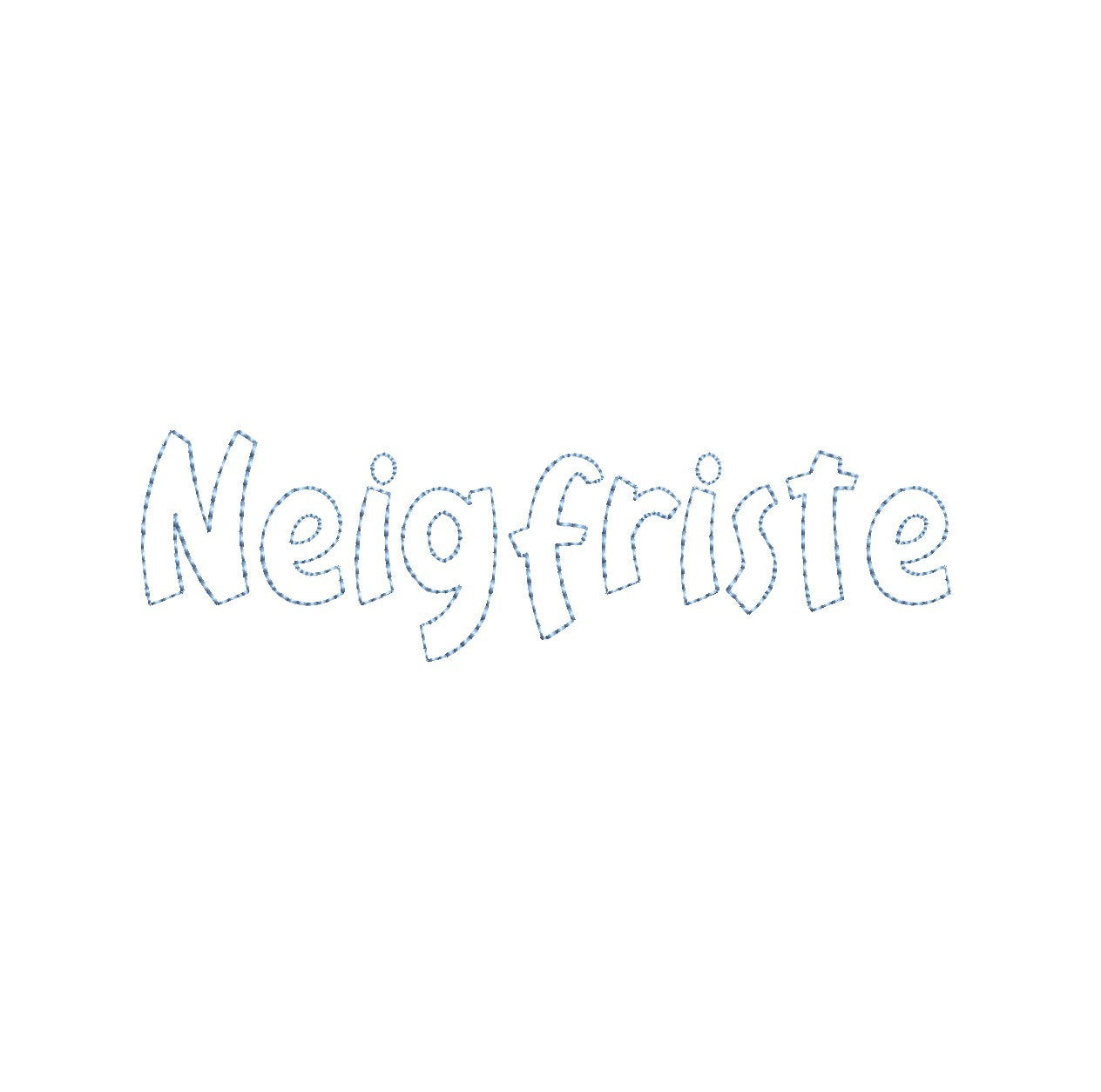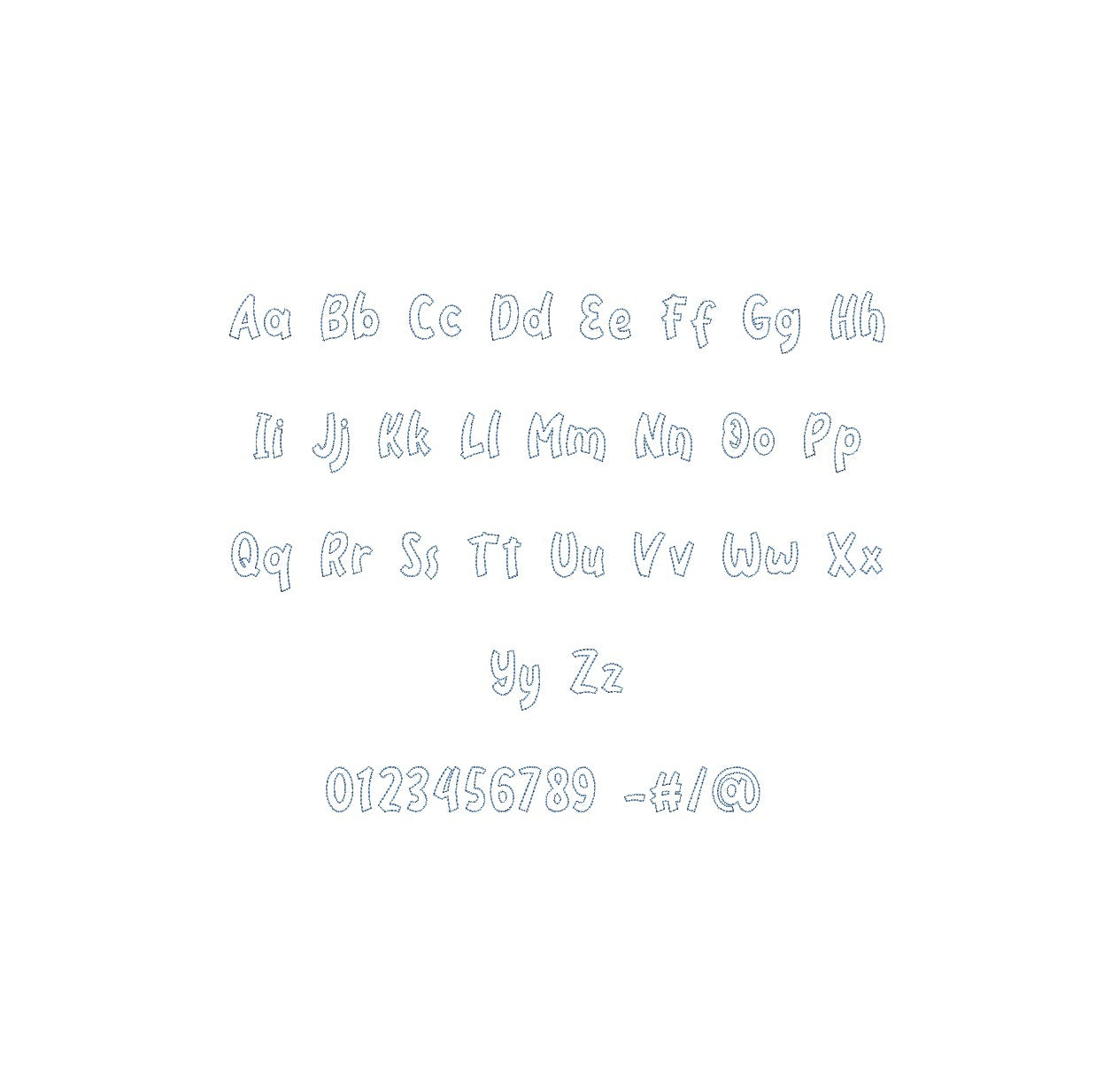
Elevate your embroidery with the Neigfriste Bean Outline ESA font. Designed for Wilcom Studio e4.5.6 and Hatch 3 versions and up, this font seamlessly blends style and precision. Infuse your designs with a unique aesthetic, perfect for monograms and embellishments. Experience seamless compatibility for exceptional results. Unleash a new level of stitching finesse with the Neigfriste Bean Outline ESA font – your key to captivating designs that stand out. Transform your creations into embroidery masterpieces that reflect your creativity. Elevate your projects with the Neigfriste Bean Outline ESA font and make your embroidery truly remarkable.